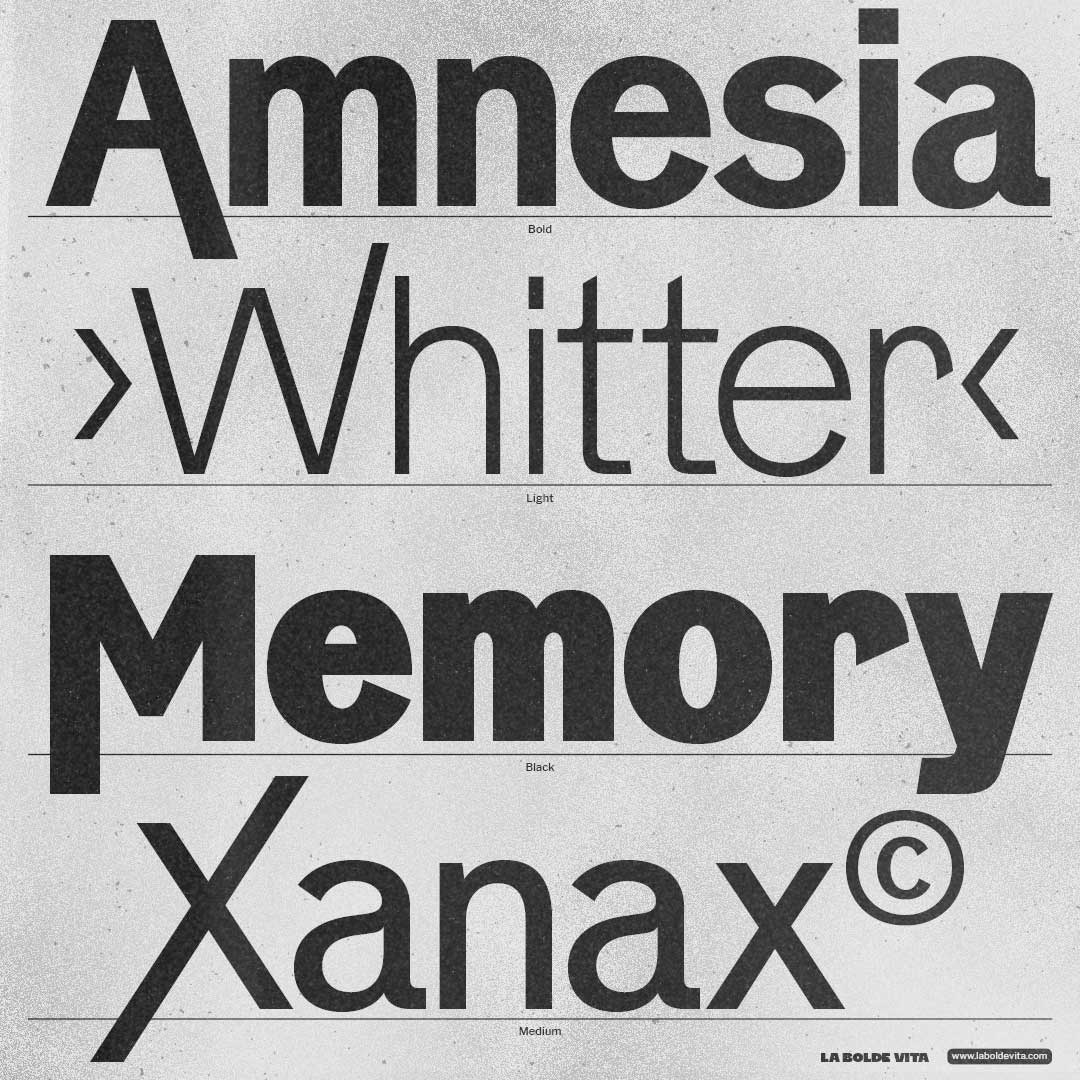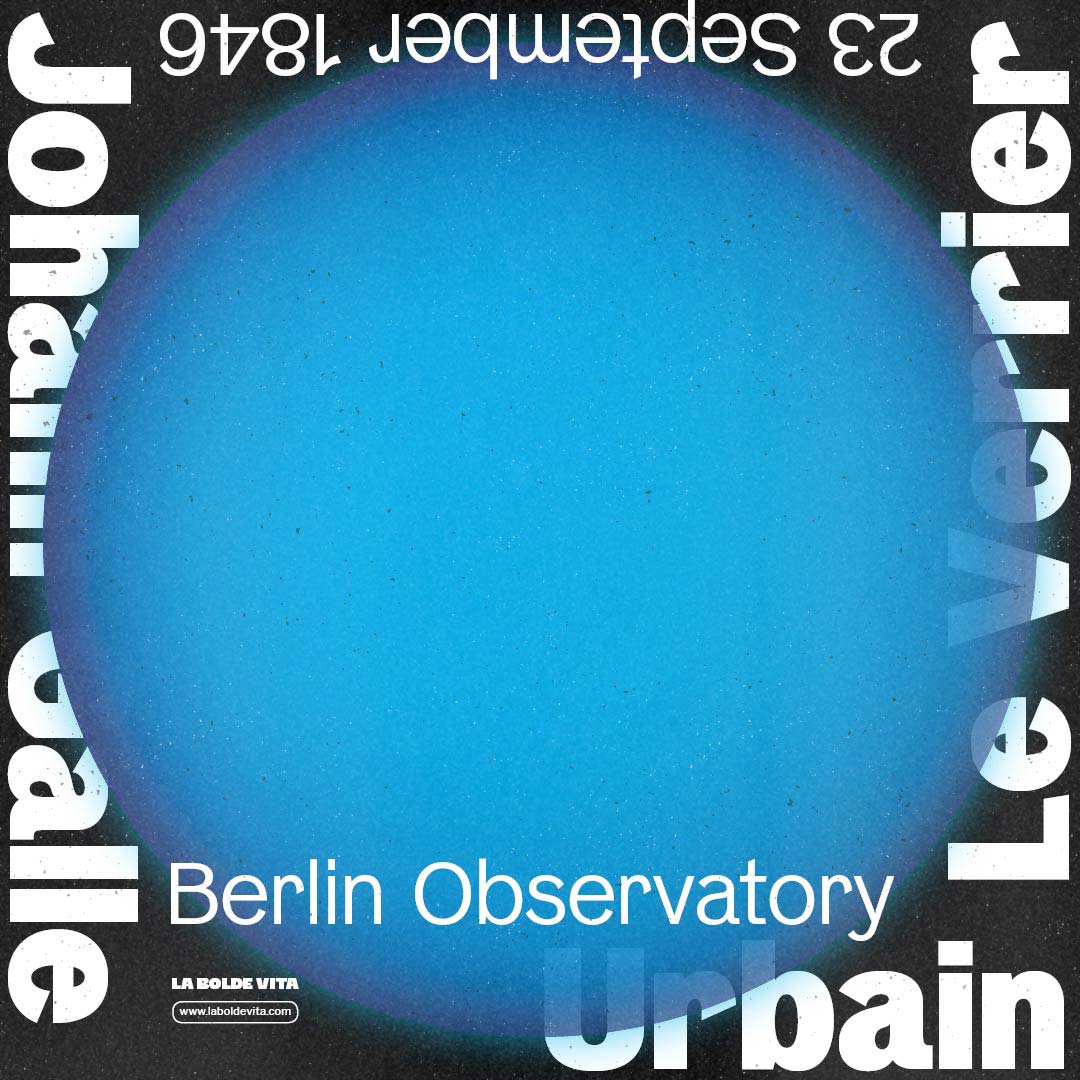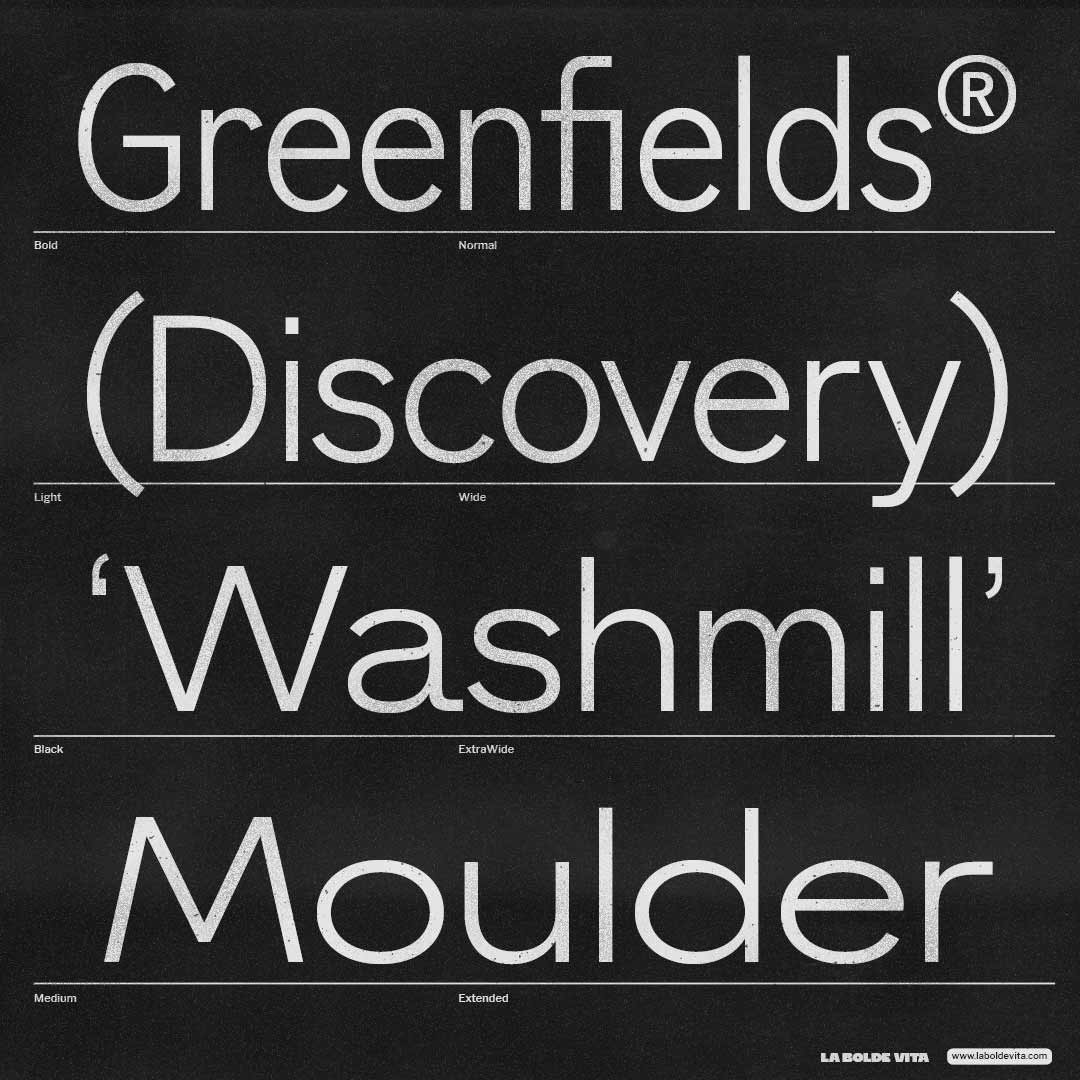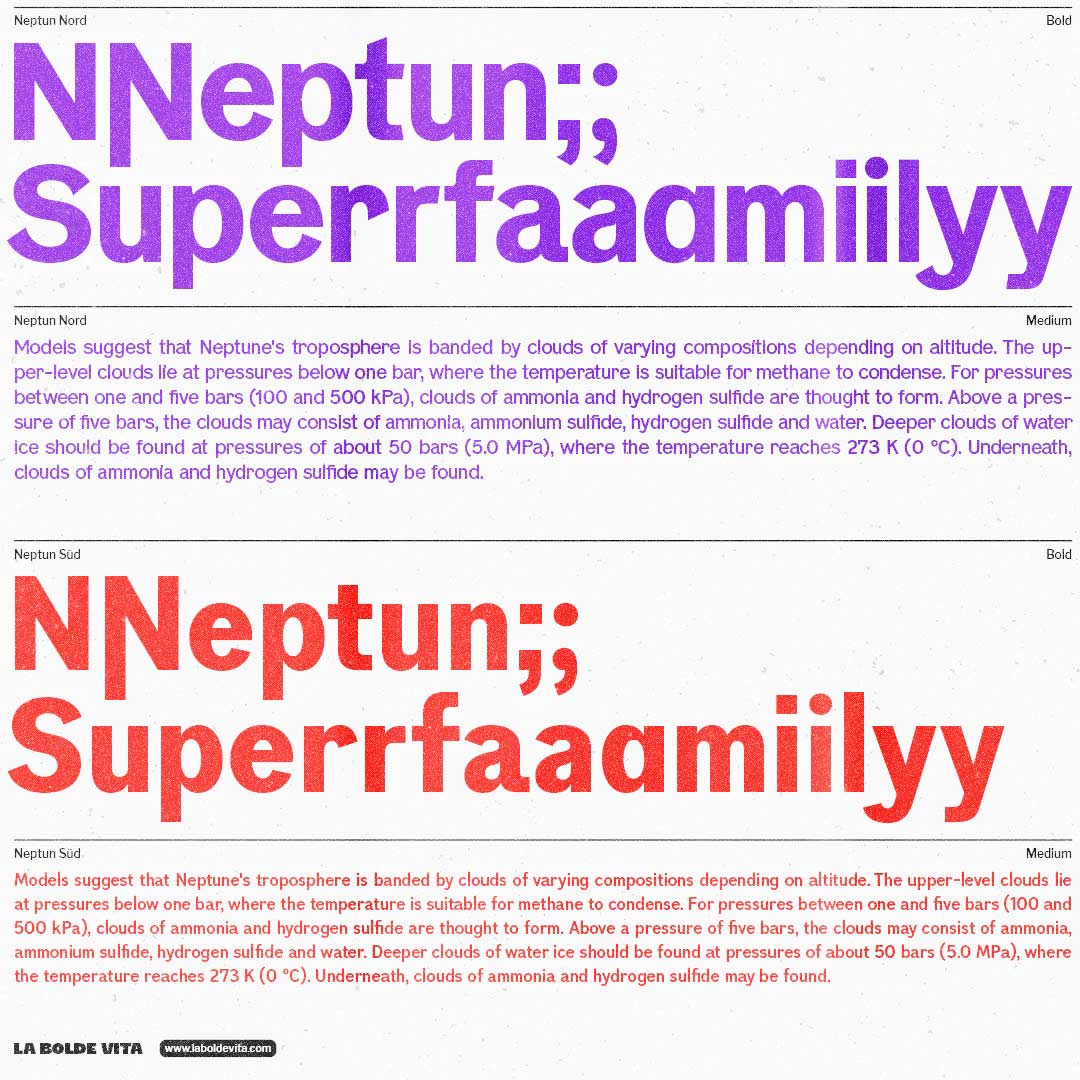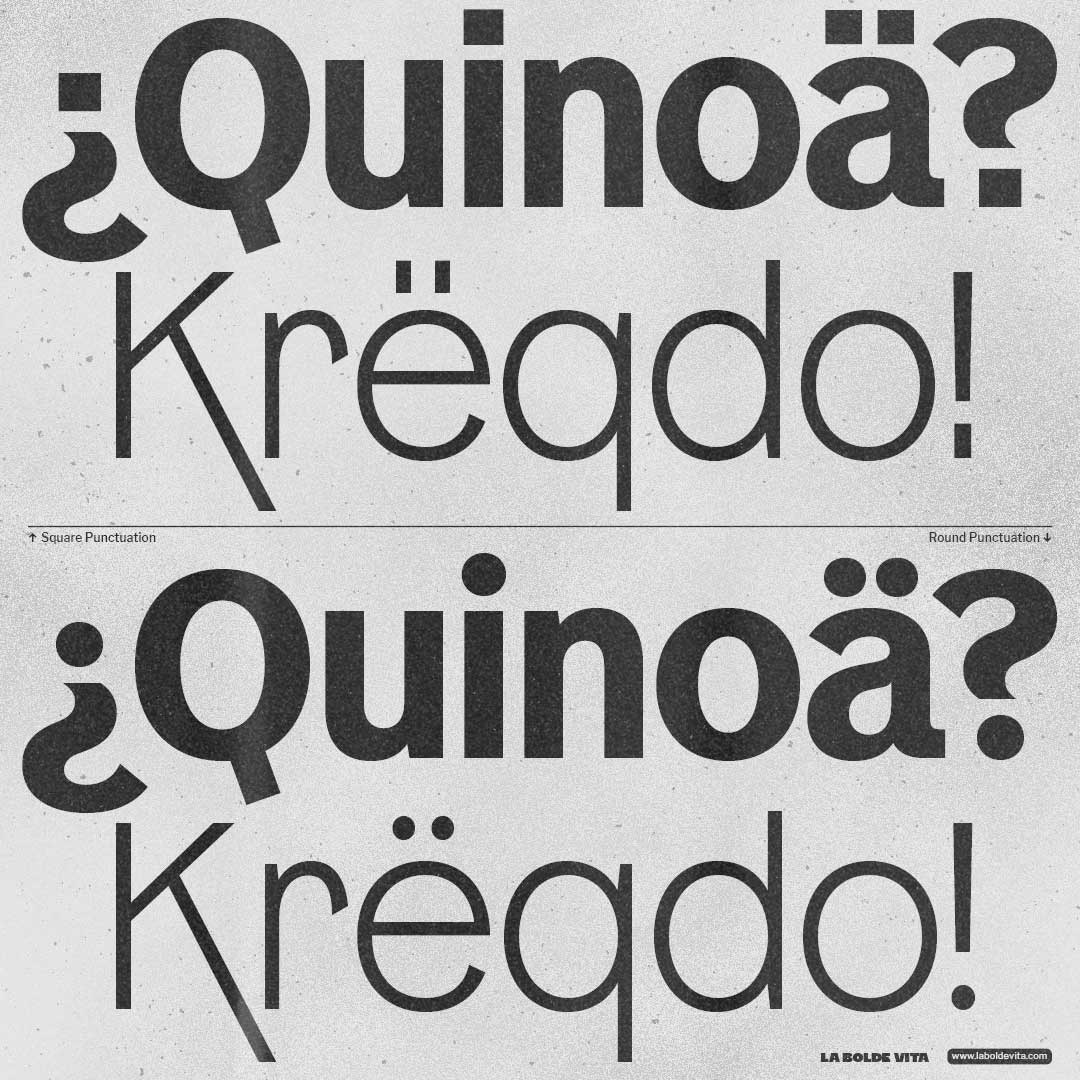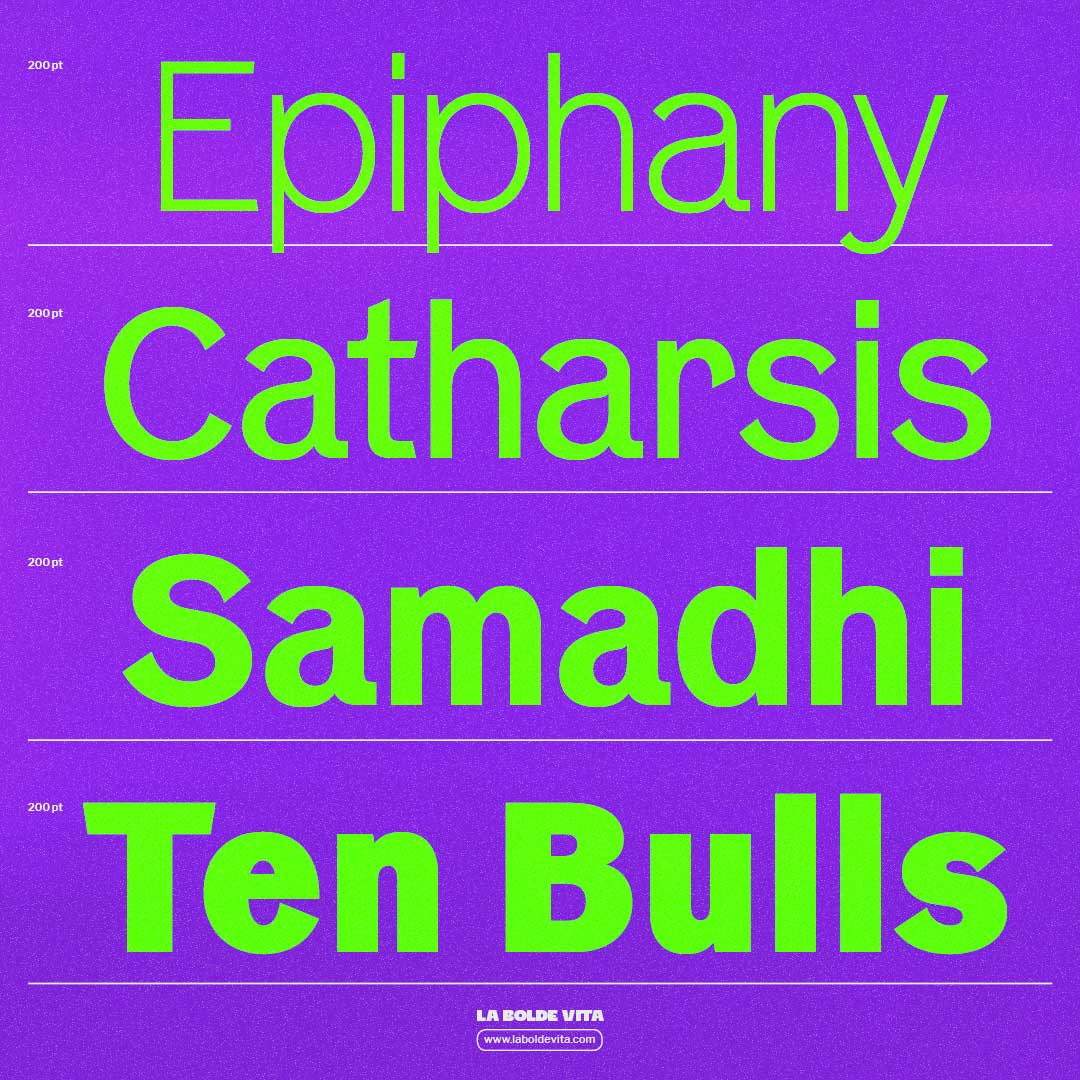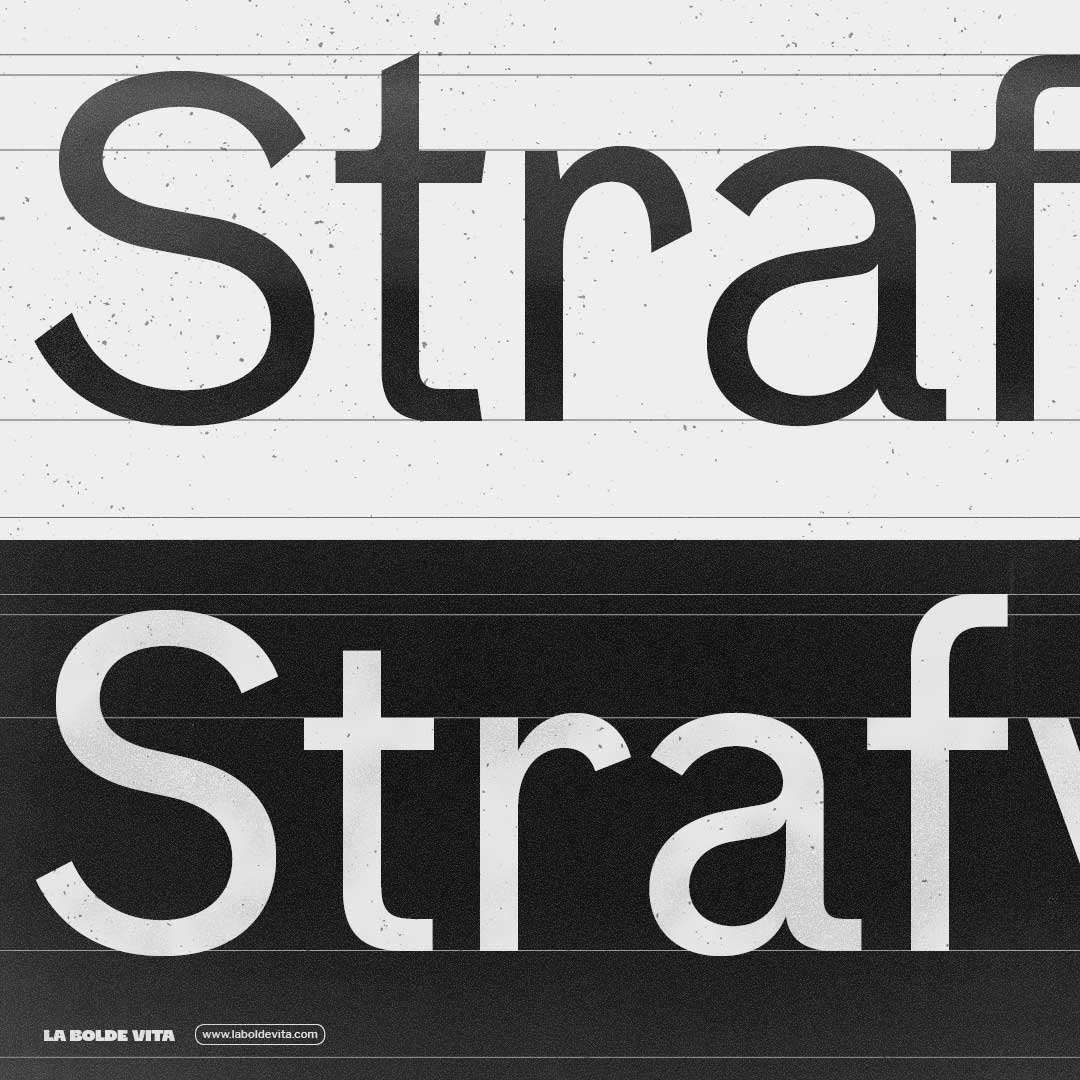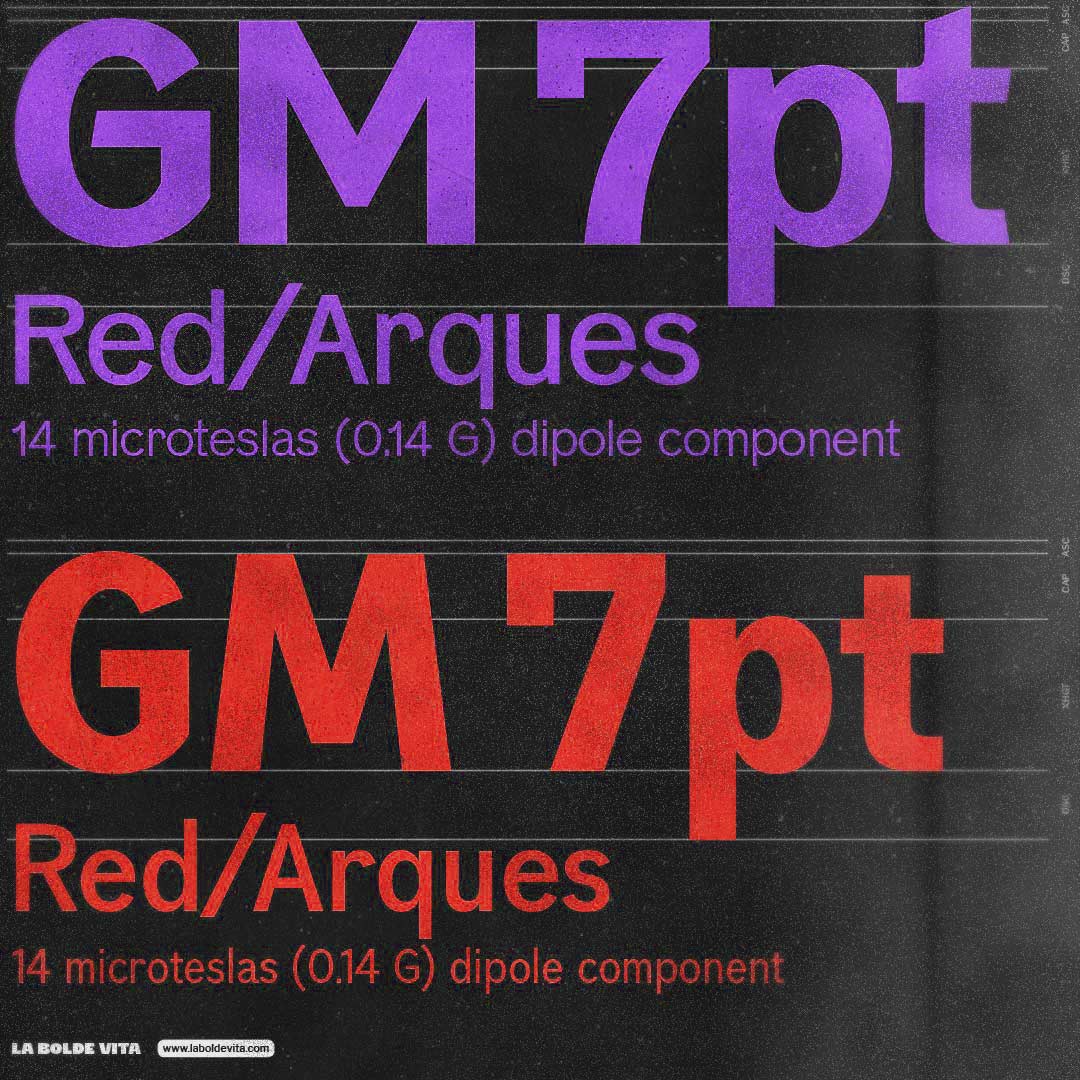
The Neptun family is an exploration of early German sans serif typefaces that challenge today’s visual habits with their warm and playful shapes. These characteristics are represented in various ways in this functional superfamily, building a typographic bridge to modern times.
Neptun Nord is a nod to Venus Grotesk, creating a friendly and retro aesthetic with extreme proportions, pointed terminals and narrow widths. Neptun Süd interprets those values in a modern way: wider forms and familiar proportions, but with punctual breakouts.
As usual, added features allow for adaptation to your needs — for example, simplified alternatives for better spacing, rounded punctuation, or initial swashes. The 2 stylistic directions, 7 weights and 7 widths allow for a wide range of use, including reading text and display usage. Furthermore, with the help of variable font technology, all parameters can be seamlessly adjusted, so you can pick the perfect mix of grotesque fonts from then and now — yourself!
Grotesque in 2 flavours
7 weights and widths
Stylistic Alternates
Neptun Nord Standard
Neptun Nord SemiCondensed
Neptun Nord Condensed
Neptun Süd
Neptun Süd Wide
Neptun Süd ExtraWide
Neptun Süd Extended
All styles of the Neptun family come with essential features for editorial and branding usage — speaking of alternates, ligatures, case-sensitive forms and various figure styles.
Round punctuation
Swash capitals
Tabular Figures
Neptun comes with 727 glyphs, covering the Latin Extended-A Unicode Range, alternates for »a«, »r« and »y«, rounded punctuation, ligatures and capital swashes.
Thanks to the coverage of the Latin-Extended-A Unicode range the Neptun family supports most modern Latin languages. Actually, containing some additional accented glyphs, you can set text in 215 languages. If you still think your language isn’t supported, you can look up the full list below or in the specimen.